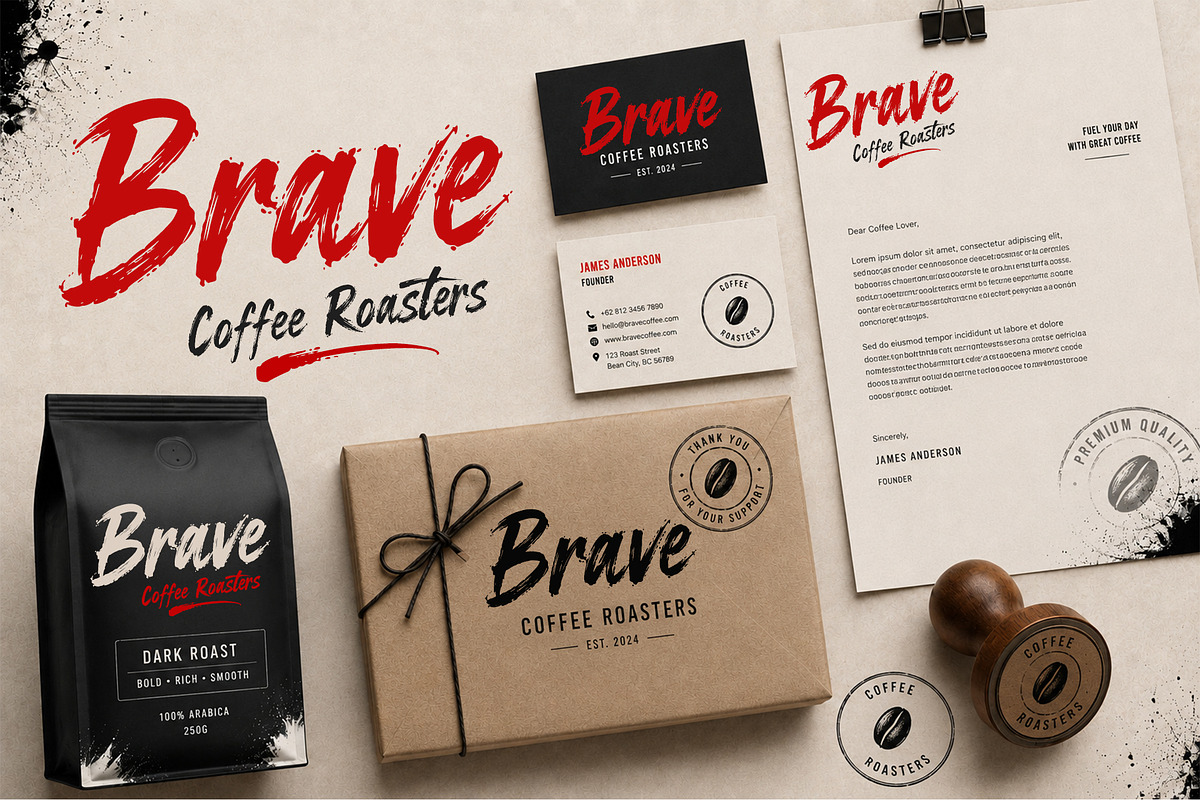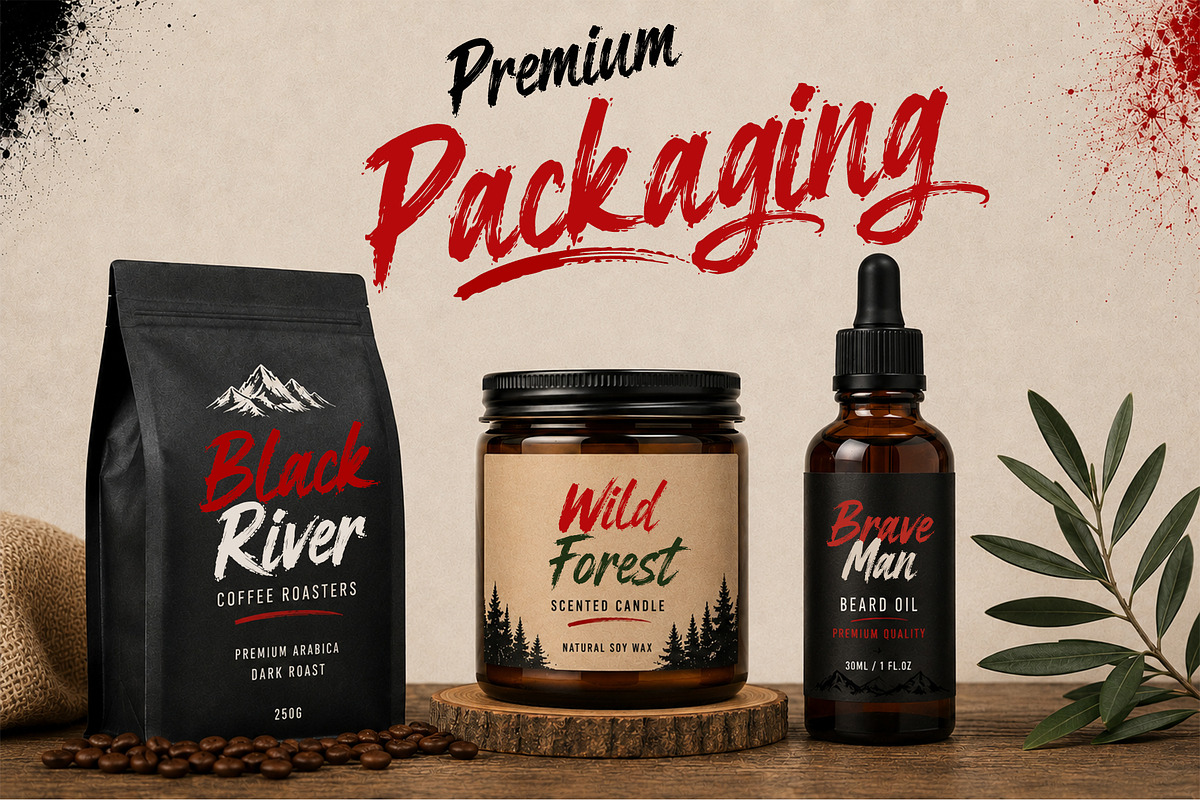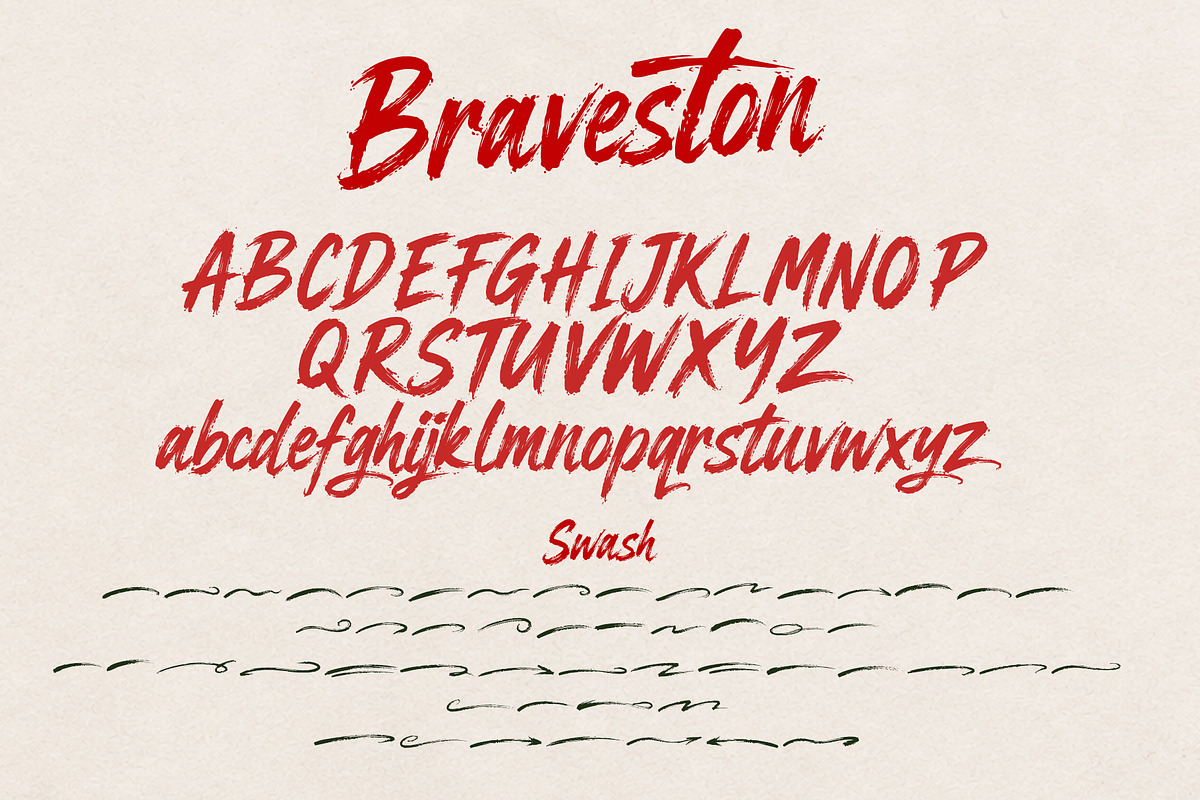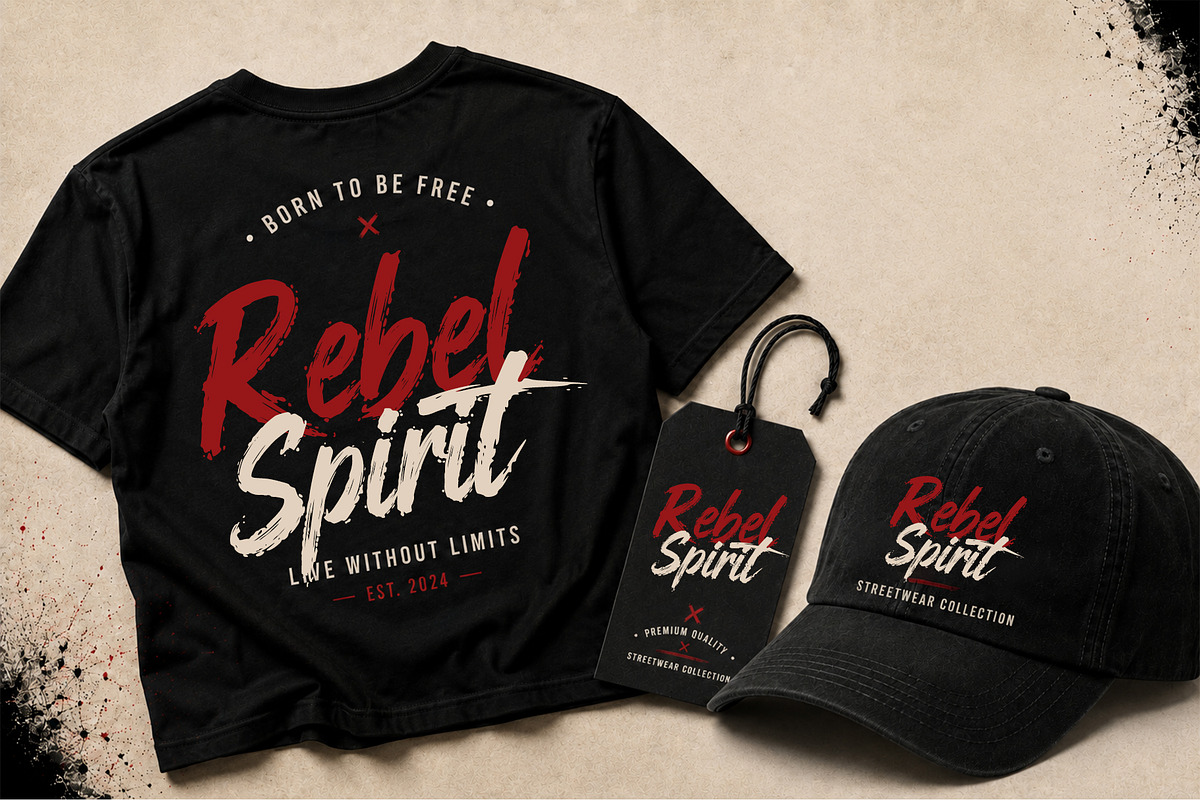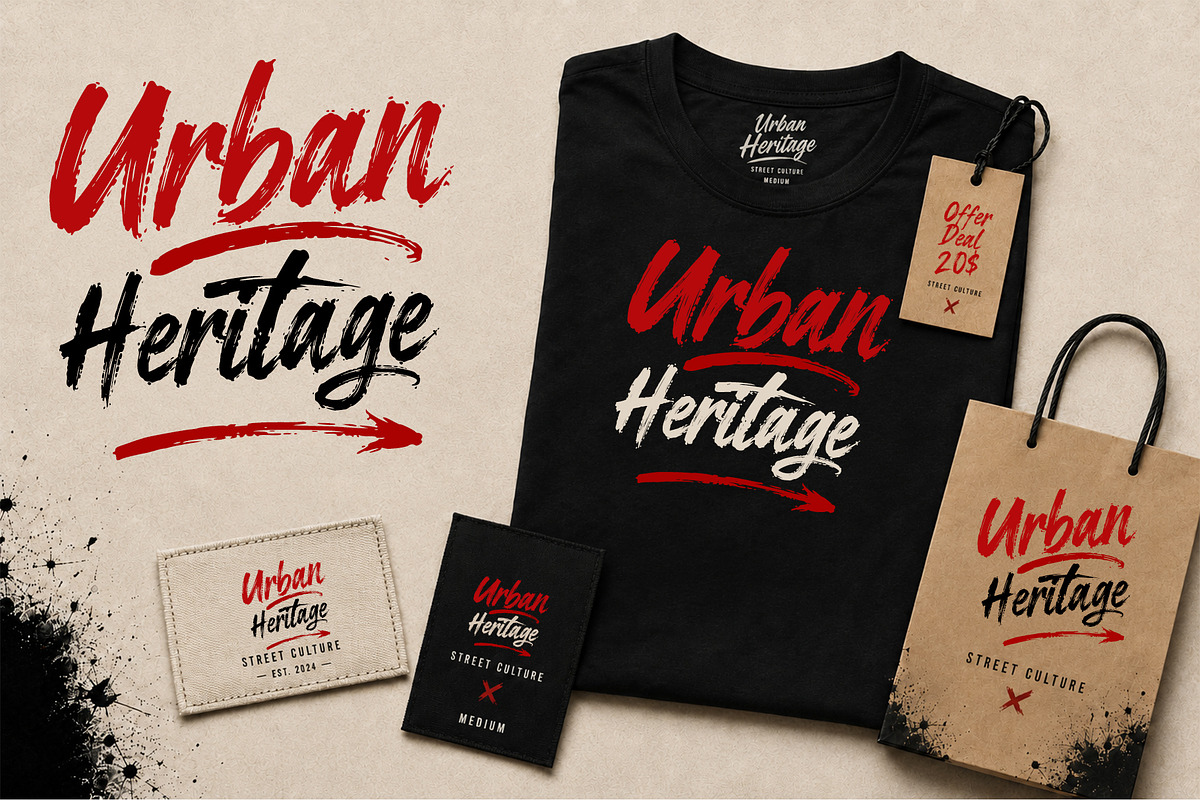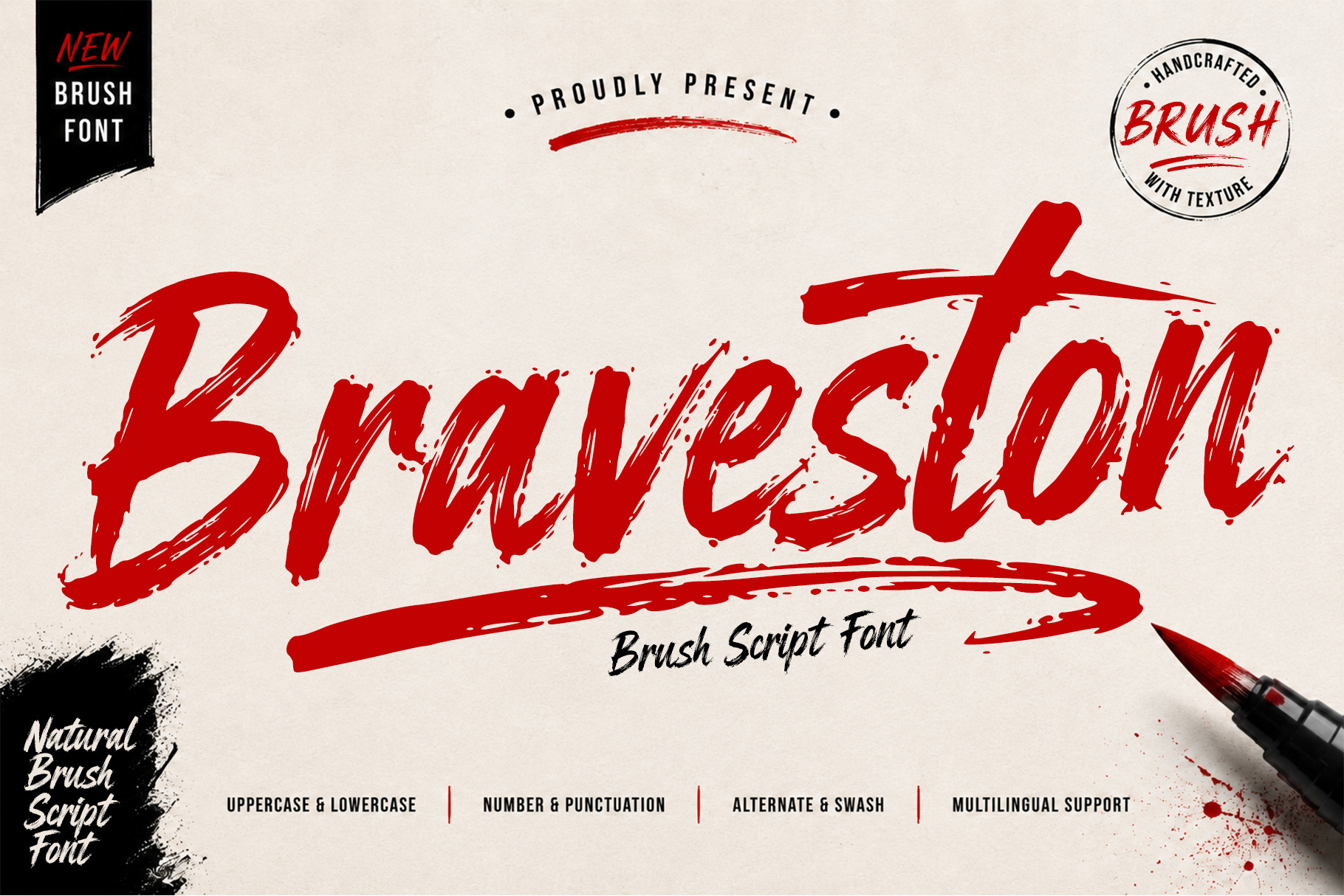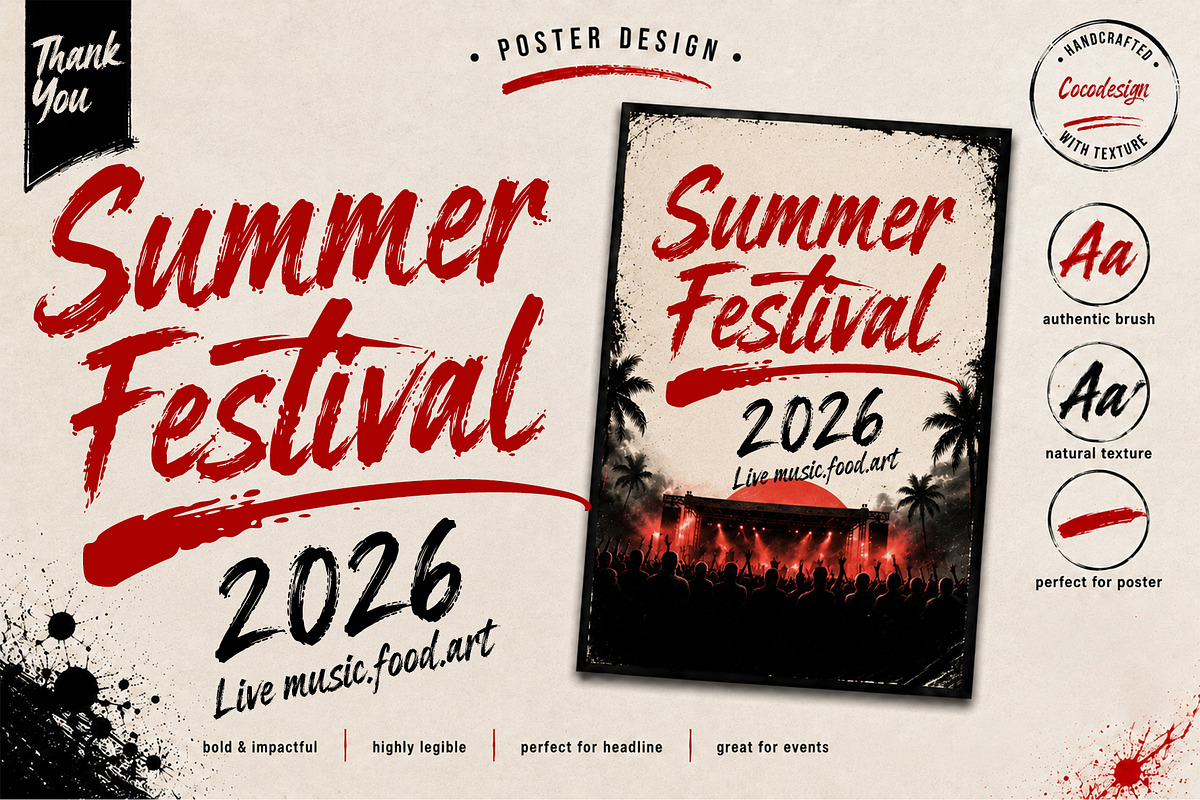
Braveston – Brush Script Font
Braveston is a bold and expressive brush script font crafted to deliver a natural hand-painted look with strong character and dynamic movement. Featuring authentic brush textures and energetic strokes, this font brings a raw, artistic feel to any creative project.
Designed with attention to detail, Braveston combines powerful lettering with smooth readability, making it suitable for both large headlines and eye-catching branding elements. Its handcrafted style creates a striking visual impact while maintaining versatility across a wide range of design applications.